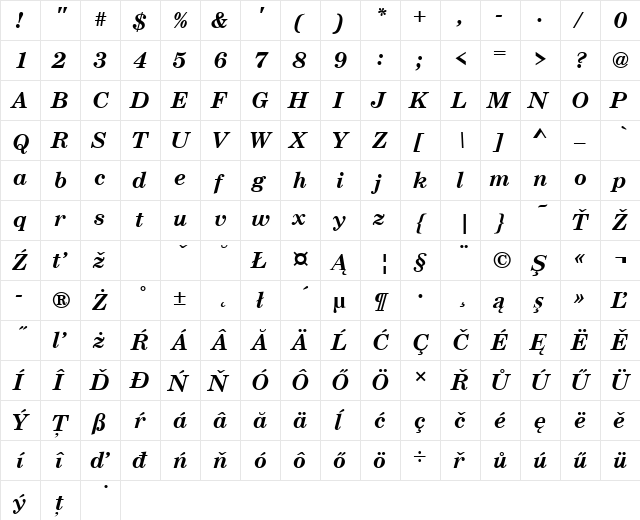
CenturySchTEE Bold Italic Font Preview
Design Context for CenturySchTEE Typeface
CenturySchTEE is a composed and adaptable typeface that performs quietly and consistently across a wide range of design contexts. Its italic angle brings a sense of urgency and motion to the letterforms. The heavy weight commands attention and anchors typographic hierarchies.
Pro Tip: Try CenturySchTEE for annotation and caption copy alongside an upright companion — the contrast in angle creates a dynamic but ordered typographic system.